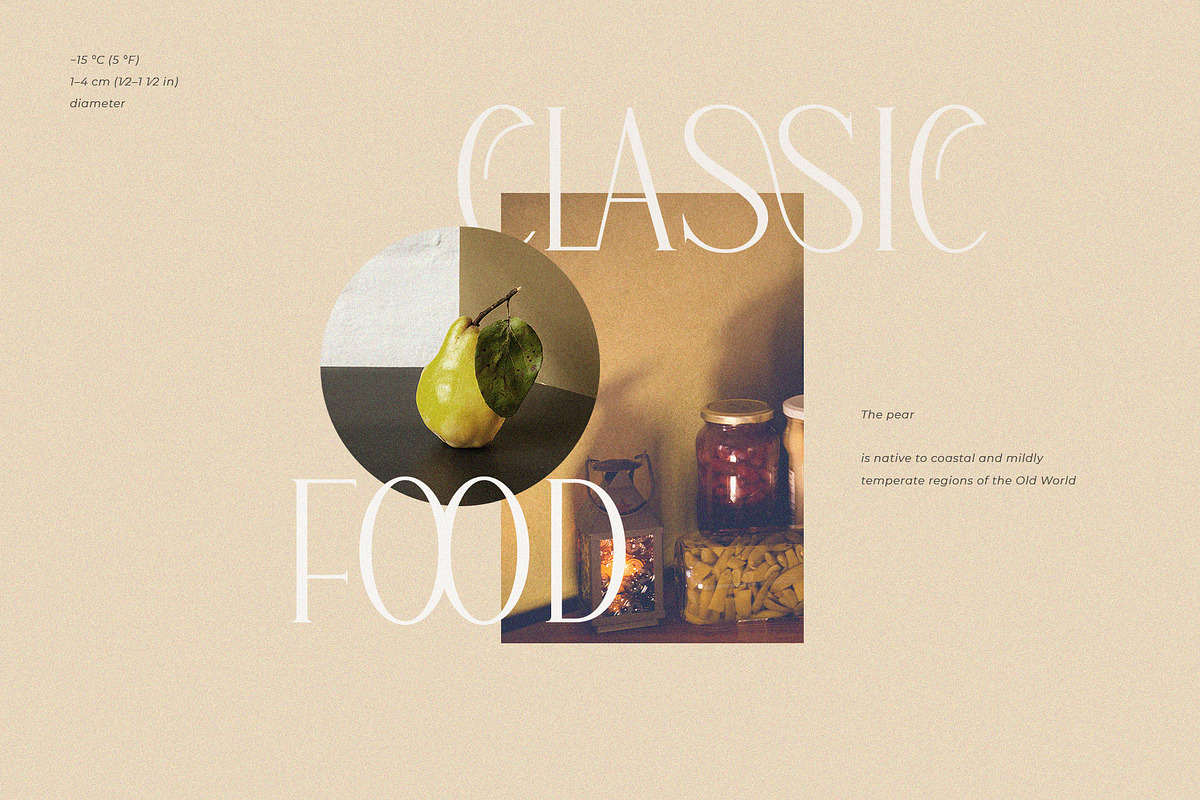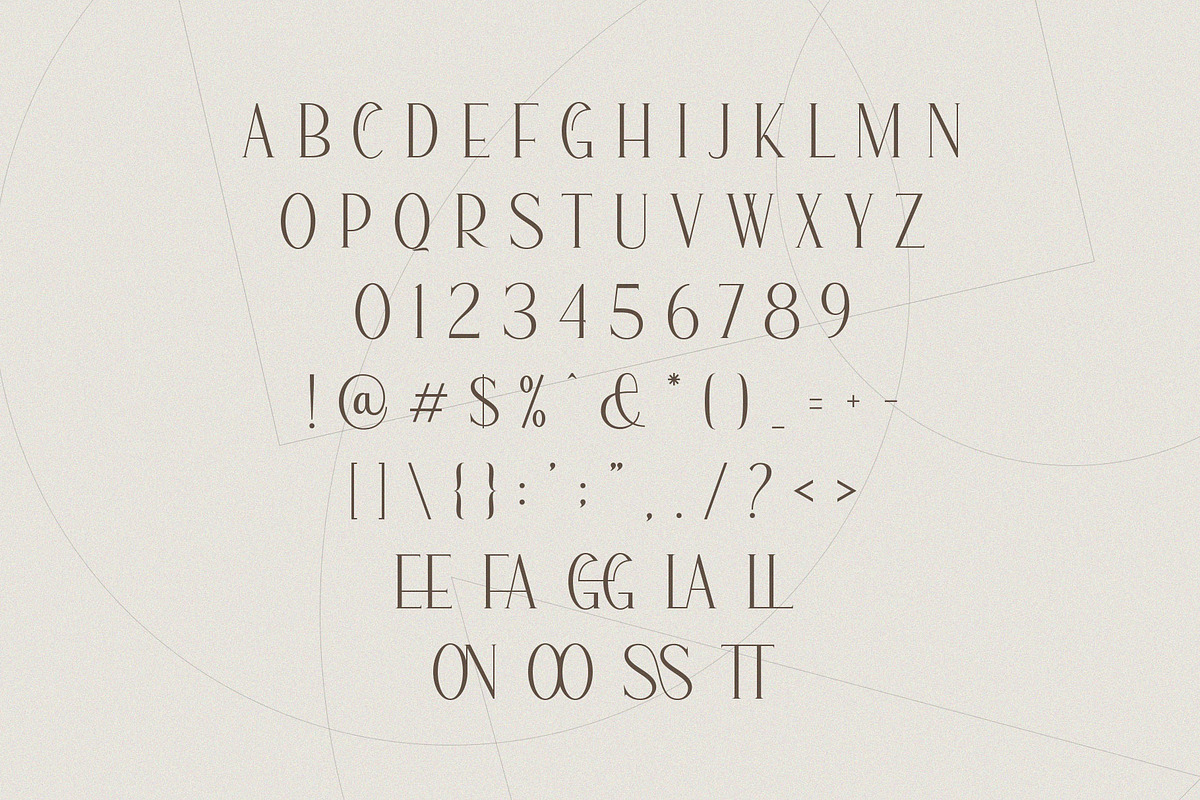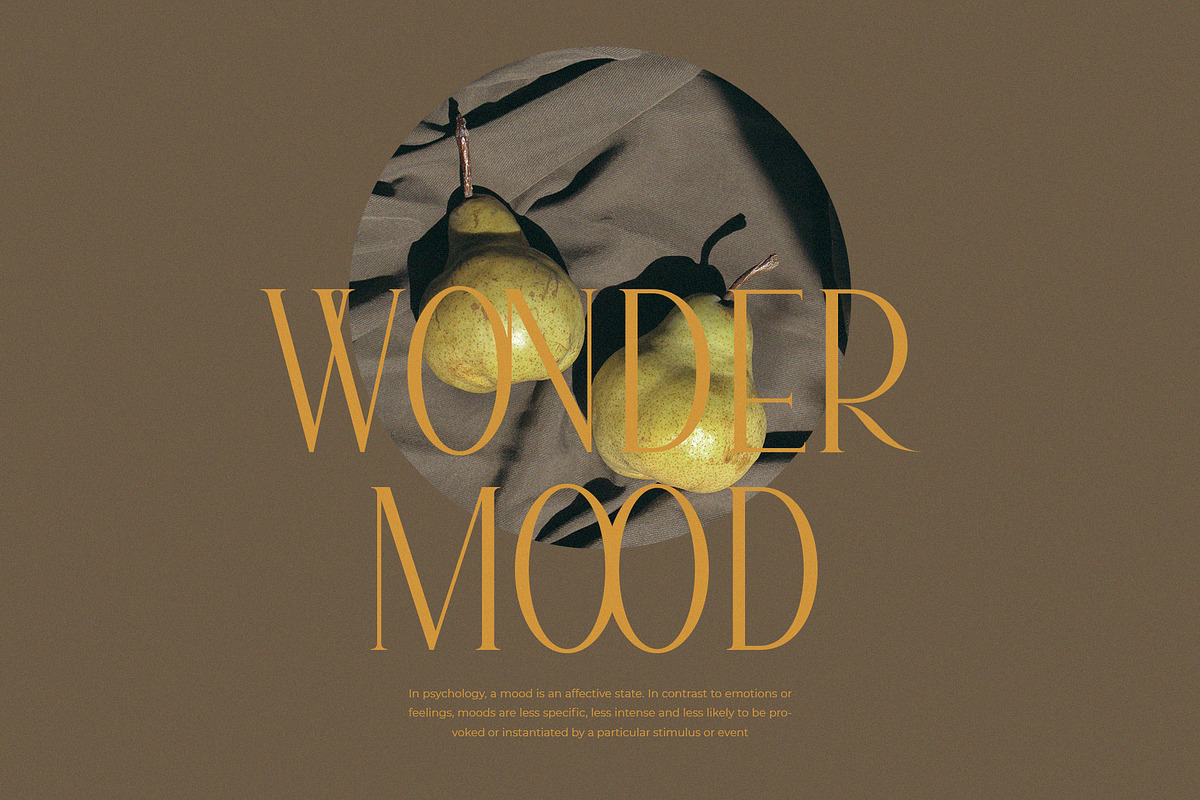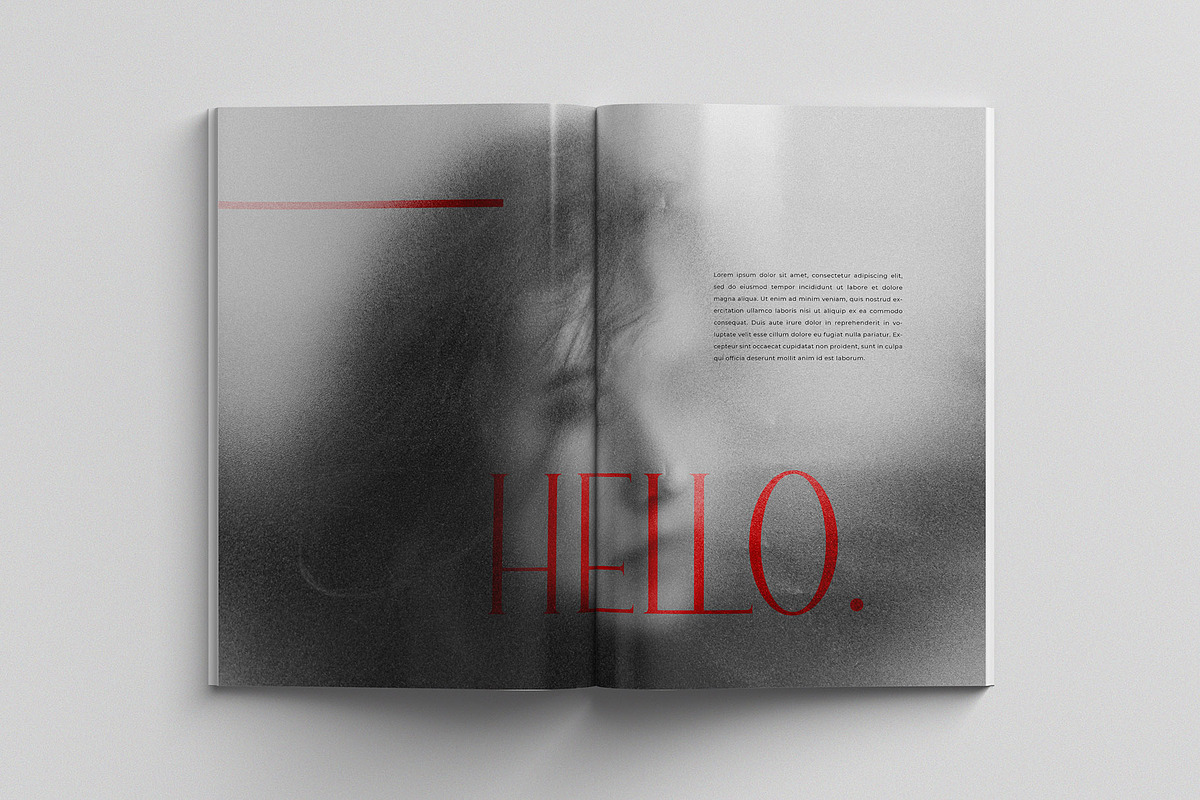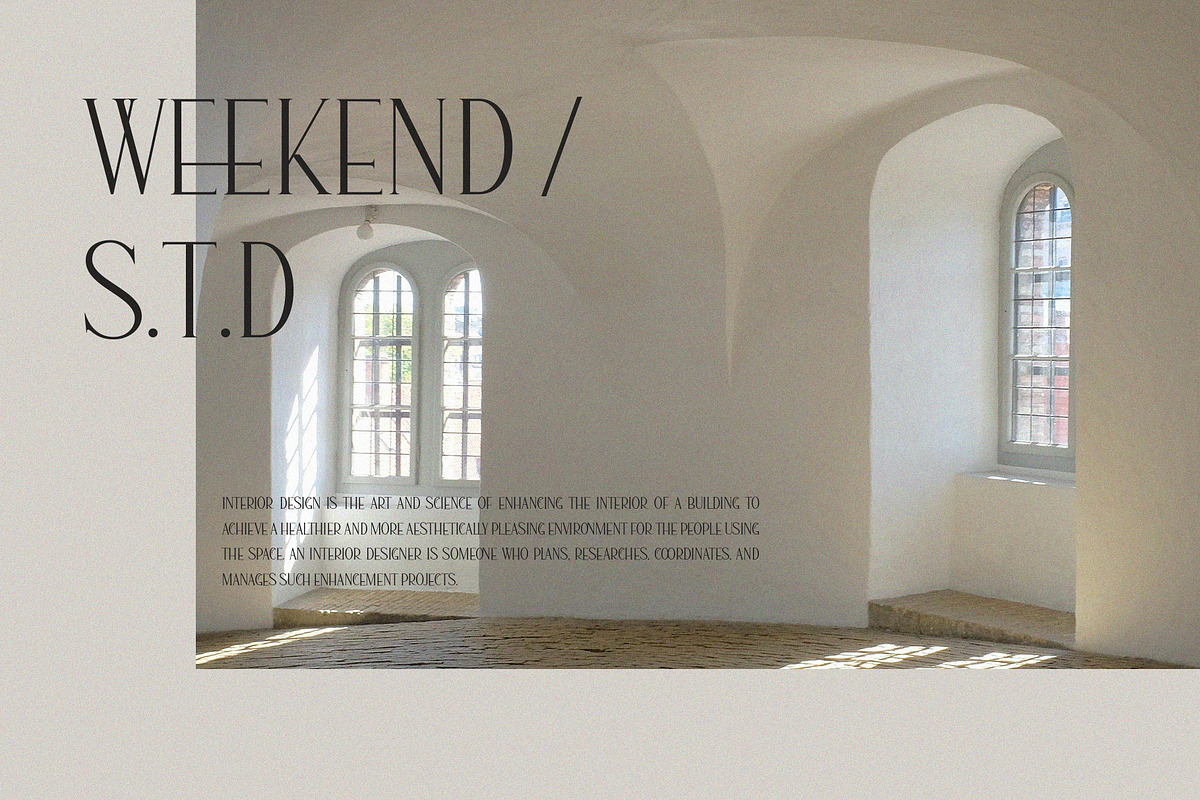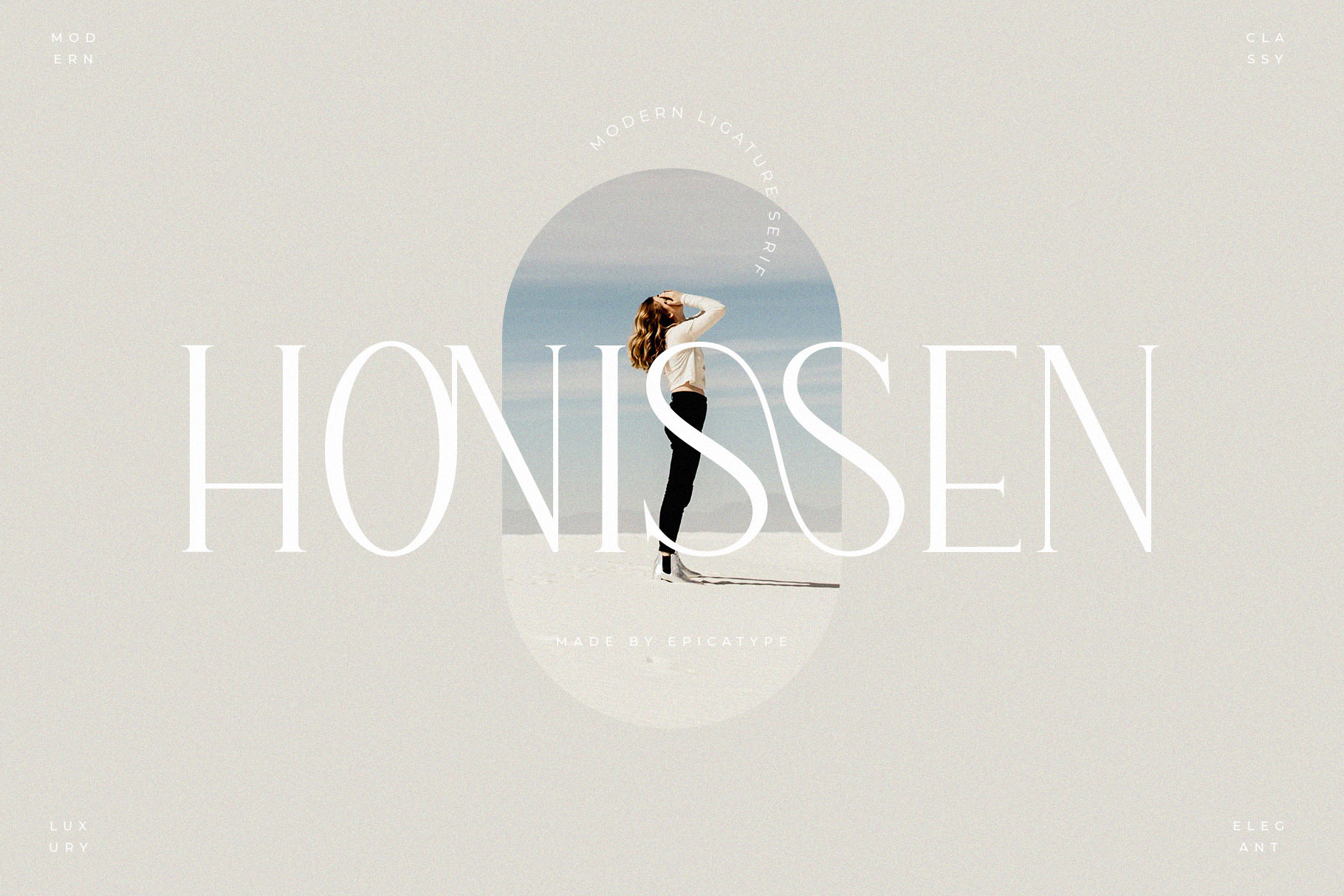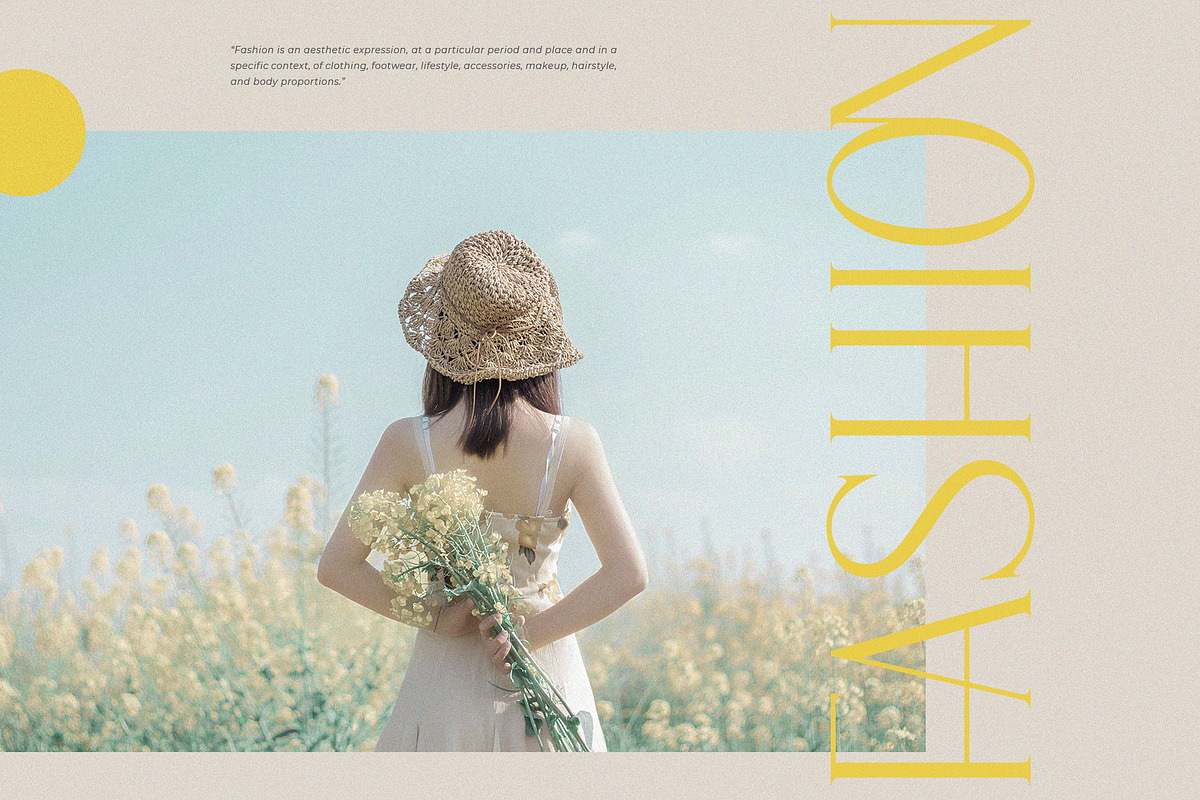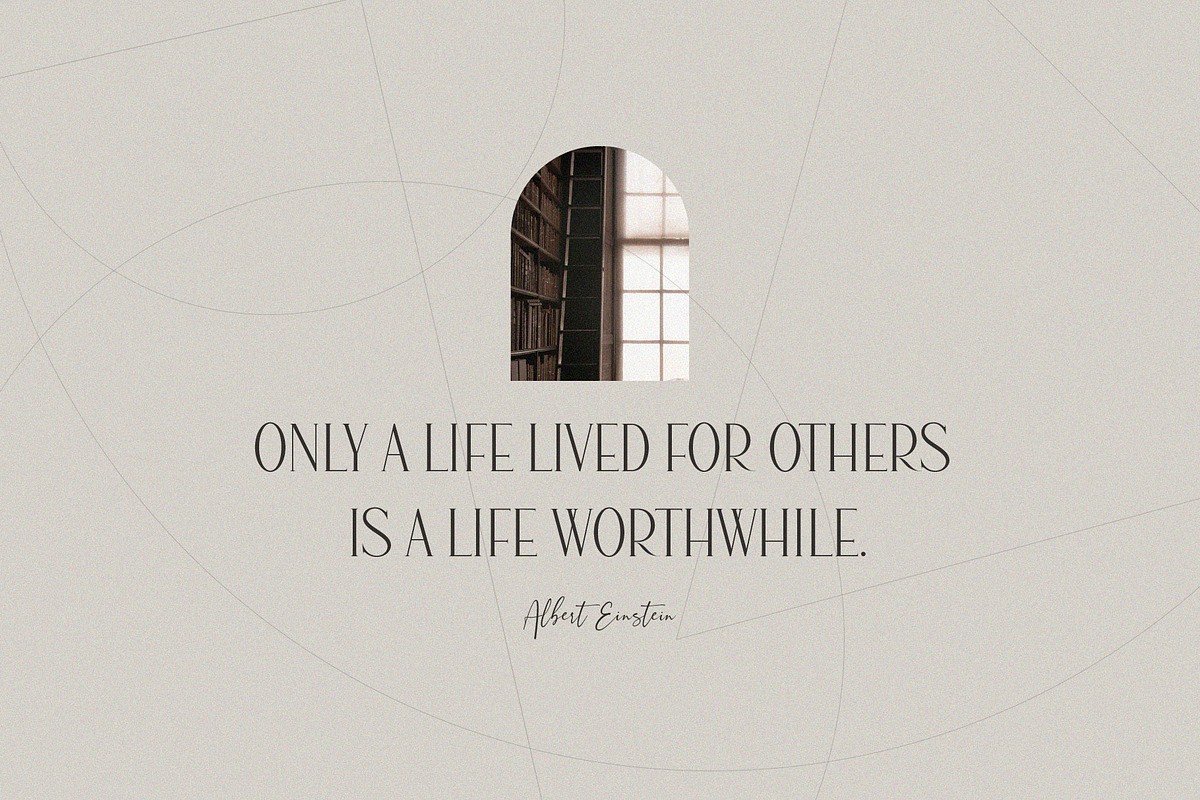
Honissen- Ligature Typeface
Hello, Start good day for new font! present to you, Honissen! A unique modern ligature font that is a mix of old and new. It's soft curves mixed with high contrast glyphs lend it self to both feminine and masculine qualities. Equipped with epic ligature, great in layout design for quotes or body copy, and will be unique to the use of the logo design. And also multilingual support.